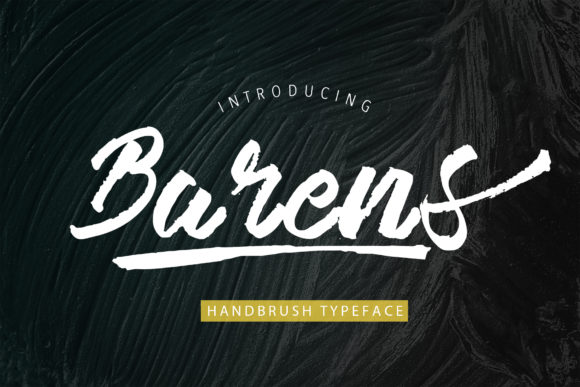
Unveil the charm of Barens Font, an enchanting script font crafted by manglingi.std, and embark on a journey of creative expression. Inspired by the magic of Christmas, this font captures the essence of the season with its graceful curves and playful personality.
Immerse yourself in the Barens experience and discover a world of endless possibilities. Whether you're designing holiday cards, creating festive social media posts, or adding a touch of whimsy to your branding, Barens Font is the perfect companion. Its casual and modern style lends a touch of sophistication to any project, while its handwritten charm adds a personal touch that resonates with your audience.
With Barens Font, you'll unlock a font that's perfect for logos, branding, social media, and crafty DIY projects. Its versatility knows no bounds, allowing you to create designs that are both visually stunning and emotionally engaging. Unleash your creativity and let Barens Font guide you to design masterpieces that captivate and inspire.
Indulge in the festive spirit and embrace the magic of Barens Font. Adorn your Christmas designs with this enchanting script, and spread joy and cheer wherever your creations go. Let Barens Font be your muse, your creative spark, and your trusted companion in crafting designs that leave a lasting impression.
So, embark on this creative adventure with Barens Font and unlock a world of design possibilities. Transform your vision into reality, one letter at a time. Embrace the charm of Christmas and let your creativity flow freely with Barens Font, your ultimate font companion.